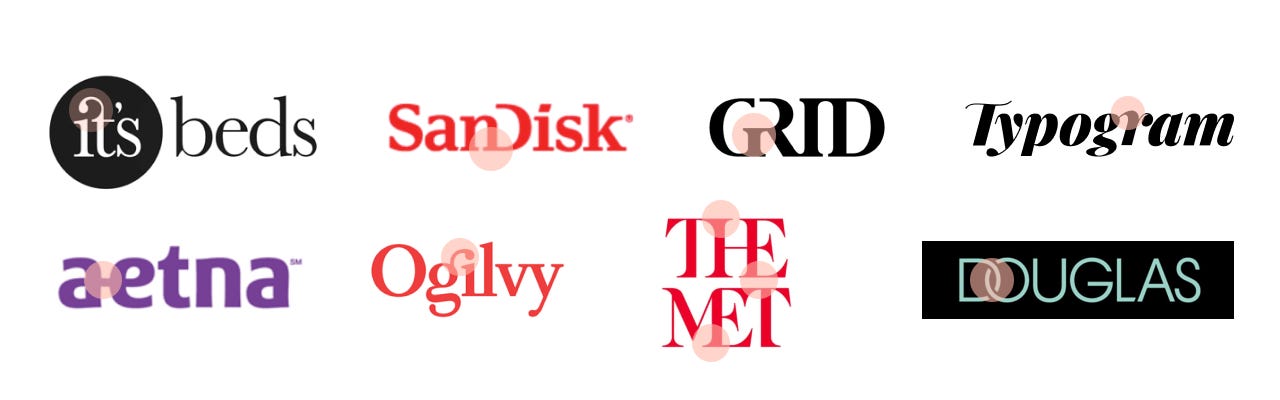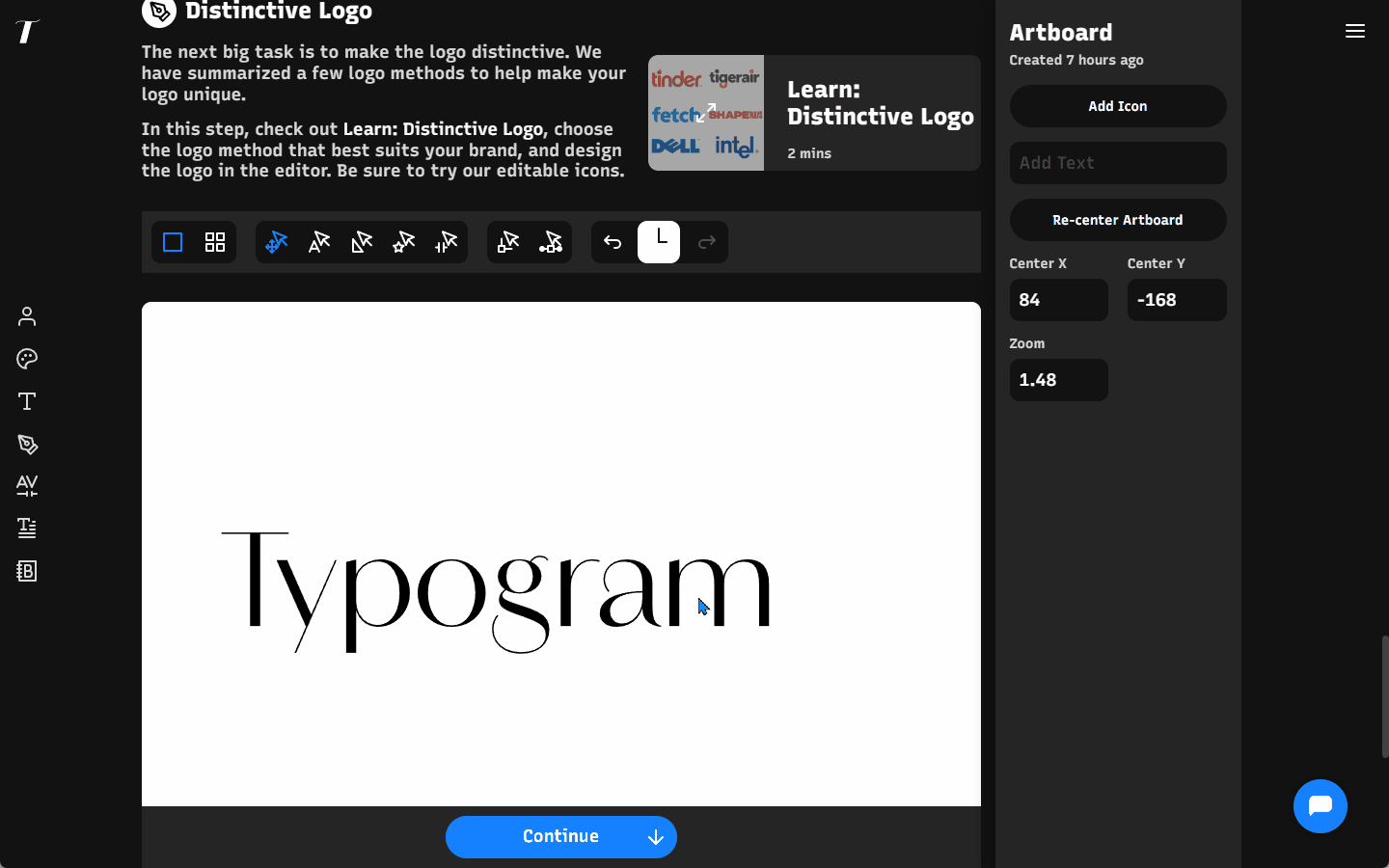
We've talked about ligature on past issues of this newsletter, but incase you want a reminder 👇
Ligatures are unique characters created from multiple letters of common letter combinations to improve readability in a font. For example, the letter "f" has a high frequency of occurring with "i" and "l", as in words like “figure” and “flower.” To improve the readability in these specific cases, "fi" and "fl", would be combined to create a unique character that would replace the two letters when typed together.
Ligatures: When Letters Tie the Knot!
A font file is like a magical world, but sadly, some of the most beautiful scenery is often less traveled and almost never seen. Most design software only scratches the surface by using the default glyphs to render the letters we use. However, behind each default glyph, there might be ten more that render the same letter in the most delightful and unique ways. Typogram filters fonts that have ligatures based on your text, making it easy to find and apply the perfect typographic style.
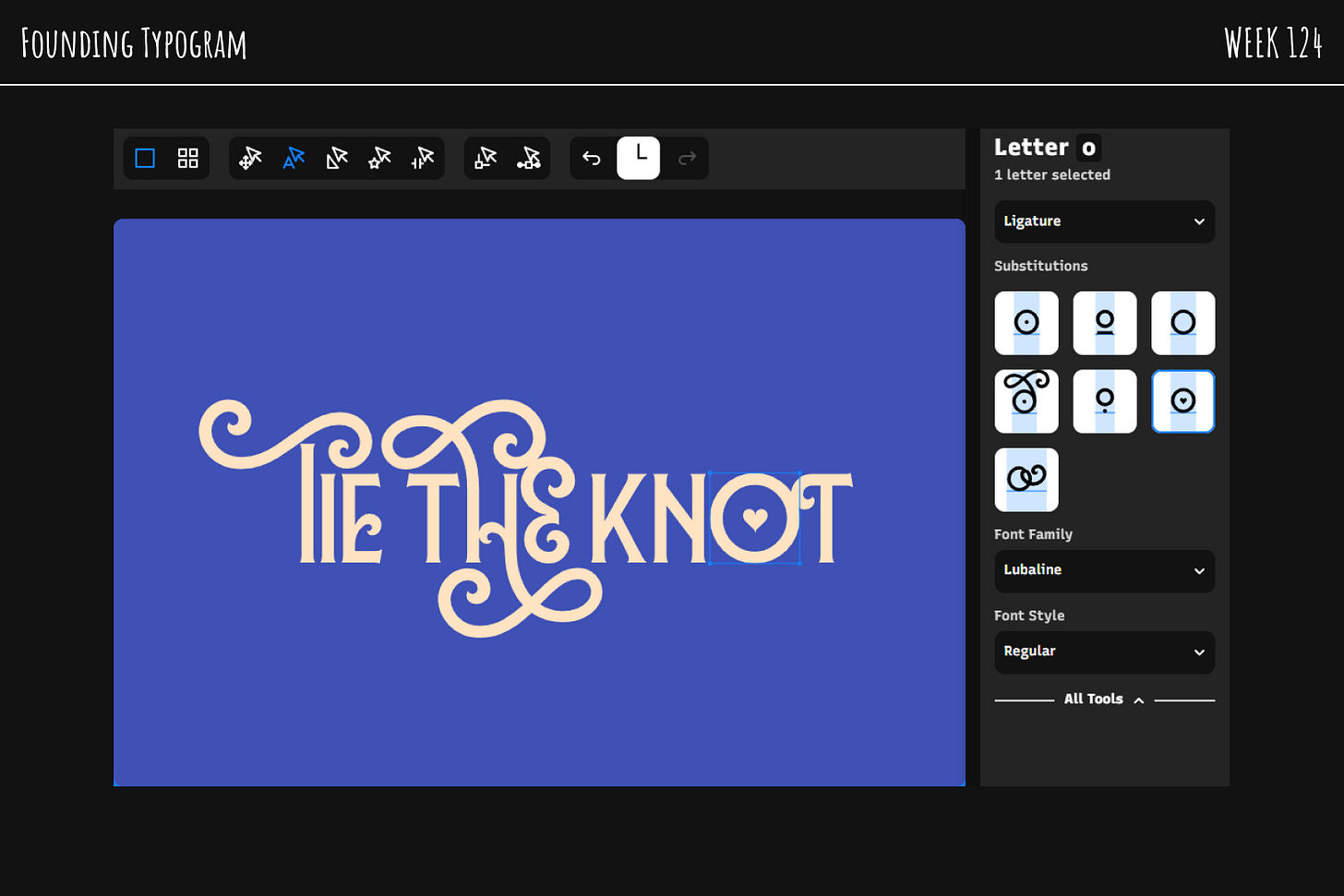
Ligatures join two letters together into a single glyph, providing a distinctive look that sets your text apart. Many famous brands, including Typogram itself, utilize ligatures in their brand marks to create a memorable and recognizable identity.
Swashes: Letters’ Wedding Attire!
Substitution glyphs, on the other hand, are mostly used for swash letters. Imagine taking the same ordinary letters and rendering them with elegant tails and swooshes. These fancy glyphs are often seen in wedding invitations, adding a touch of sophistication and glamour to the text.
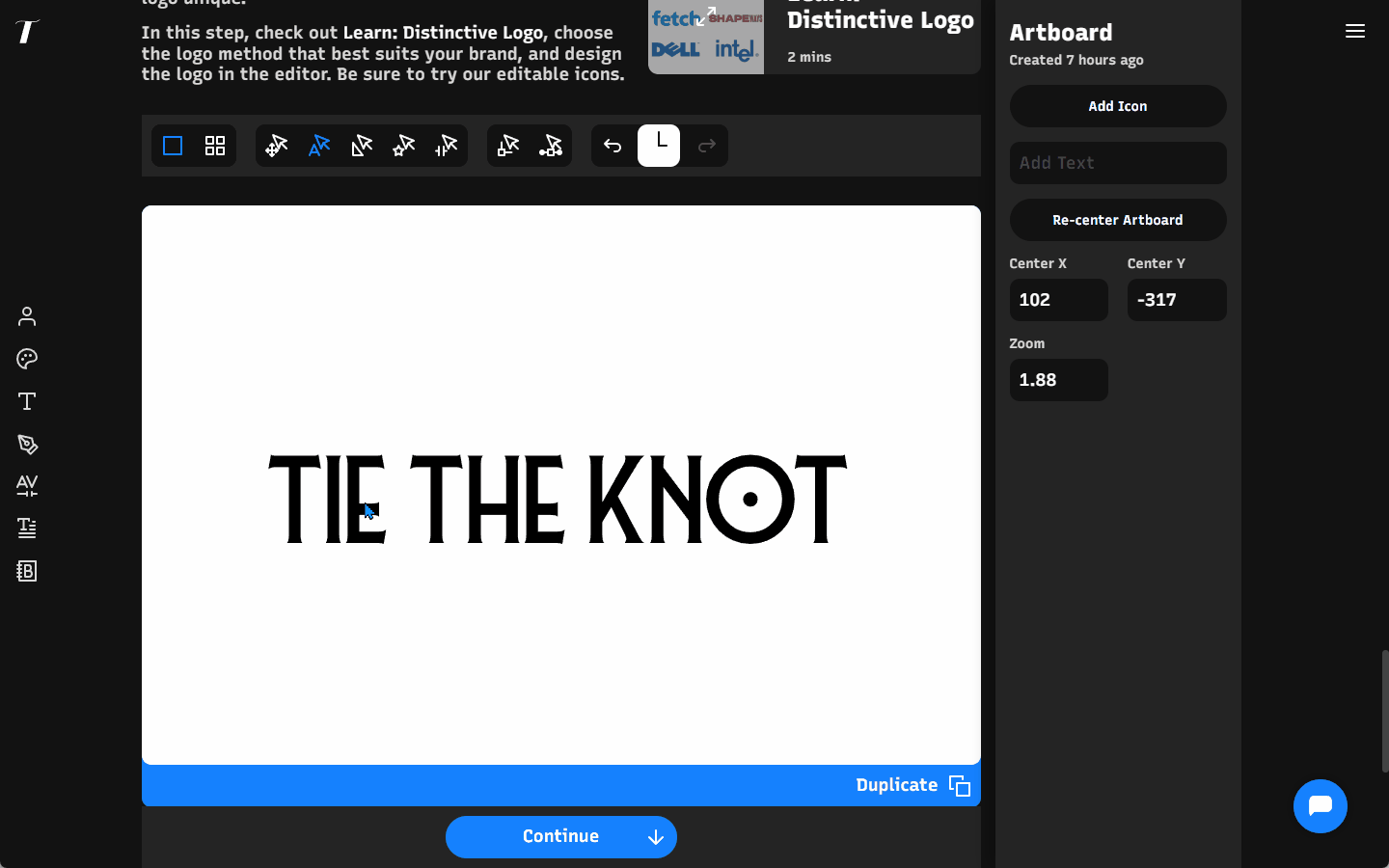
Incorporating ligatures and substitution glyphs into your designs is a fantastic way to spice up your brand mark and make it stand out from the crowd. With Typogram’s new feature, you can now easily access and utilize these hidden gems, bringing a fresh and exciting look to your typography.